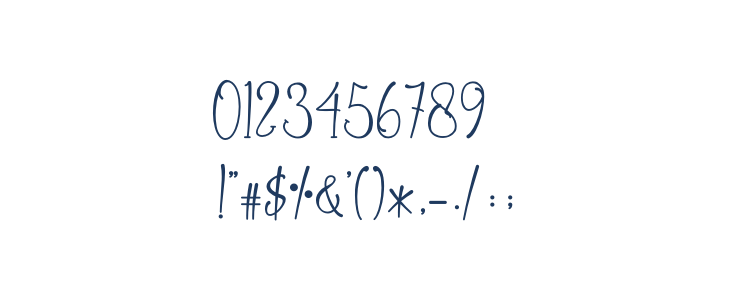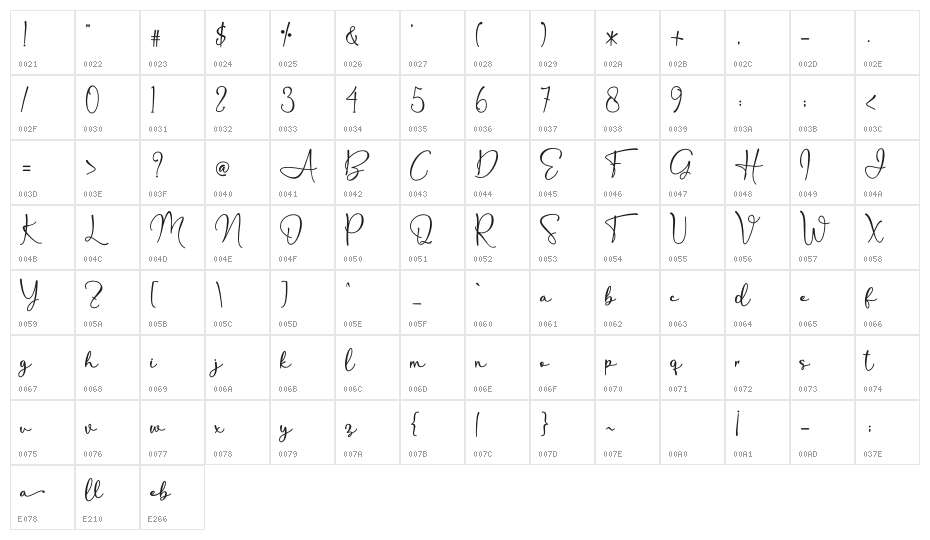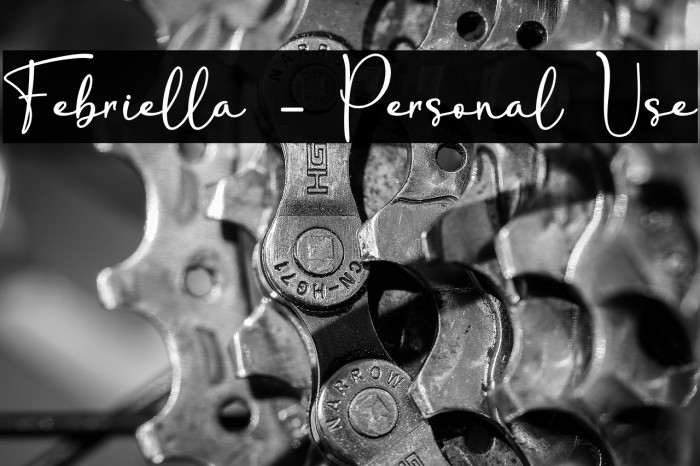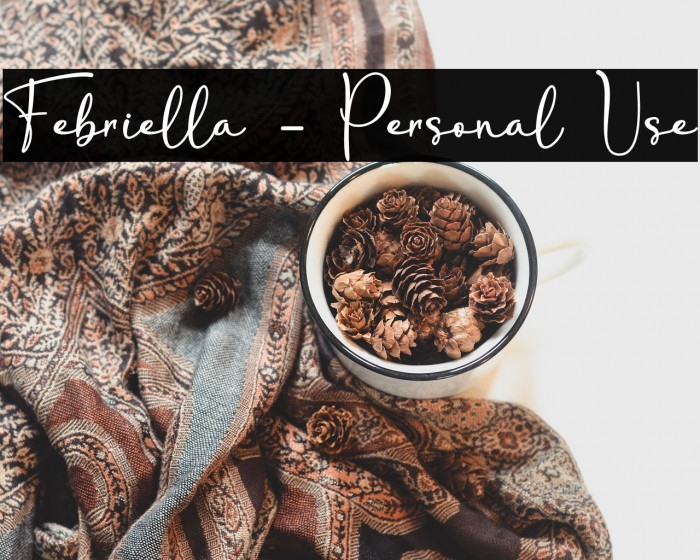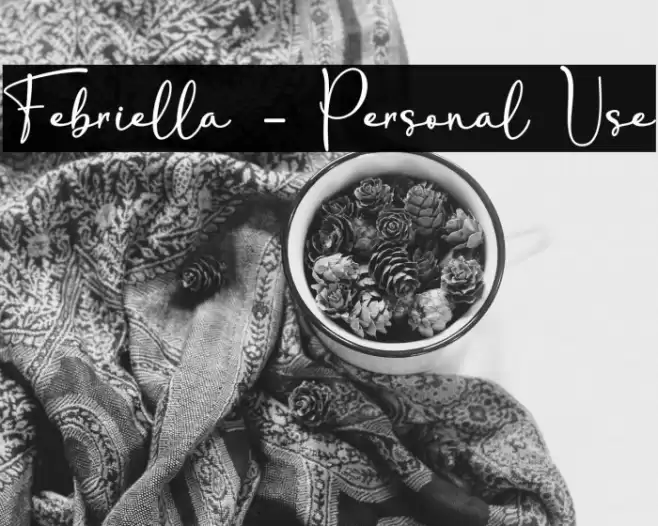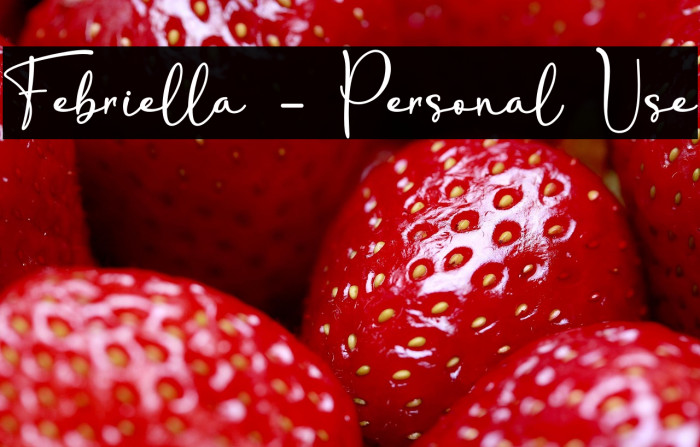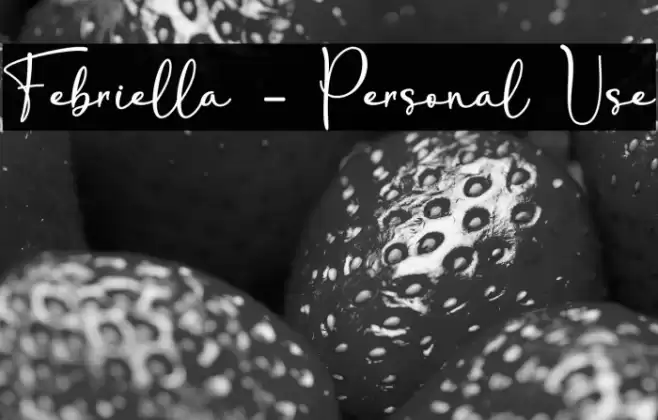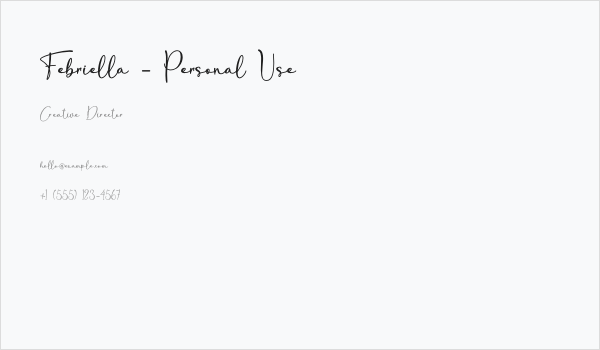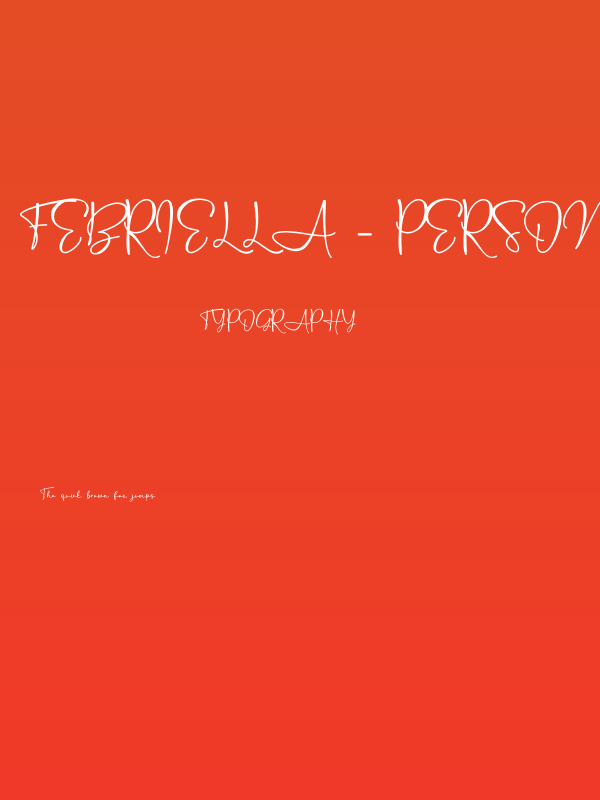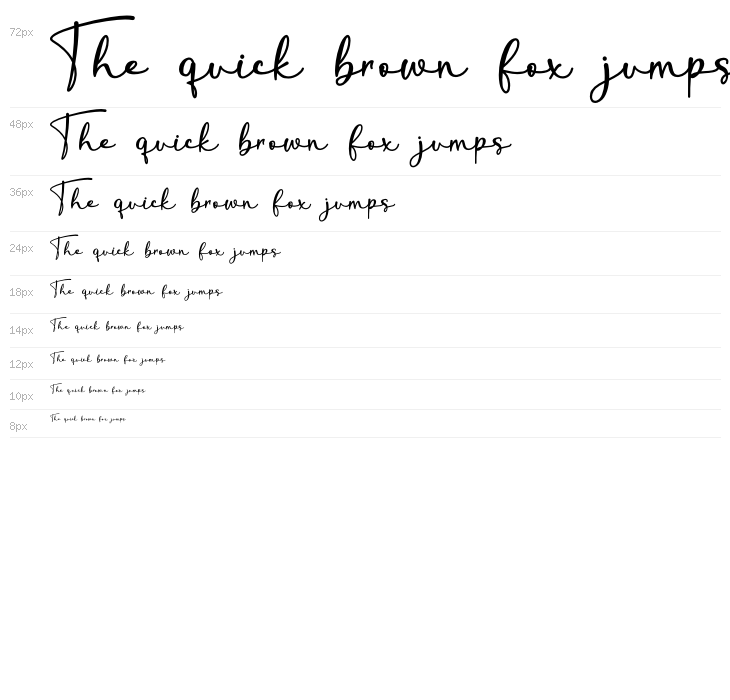
Febriella - Personal Use Font
This font features a playful and elegant script style, characterized by its flowing, cursive letters. The uppercase letters exhibit a whimsical flair with extended loops and curves, while the lowercase letters maintain a more subdued yet stylish appearance. The numerals are consistent with the overall script theme, offering a harmonious blend of elegance and readability. Special characters are thoughtfully designed to complement the alphabet, maintaining the font's cohesive aesthetic. This font is perfect for projects that require a touch of sophistication and creativity.
Use CaseLogos, Headlines, Invitations
Proposed ProjectsIdeal for wedding invitations, greeting cards, branding, and social media graphics.